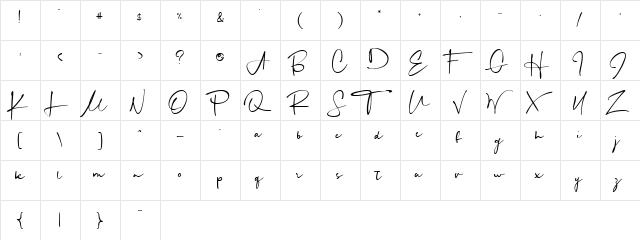
Mortdecai Script Regular
| Foundry | REDY STUDIO |
| Designer | REDY STUDIO |
Design Context for Mortdecai Script Typeface
Mortdecai Script brings a calligraphic fluidity to the page — its connecting strokes and expressive curves give it an unmistakably human quality.